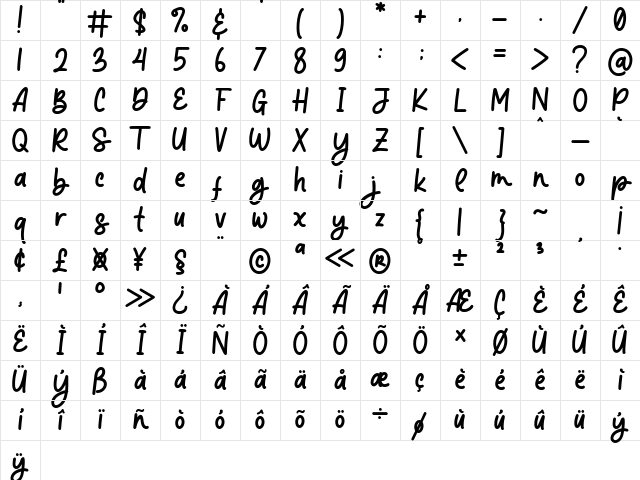
Complete Banana Super Regular glyph index. Displaying only characters natively supported by Banana Super Regular font.
Banana Super is a composed and adaptable typeface that performs quietly and consistently across a wide range of design contexts.